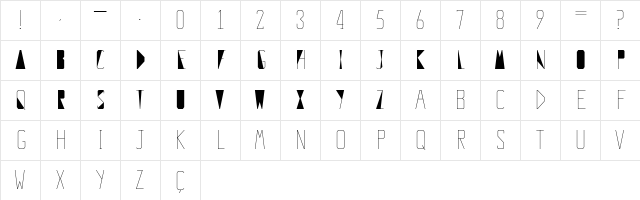
Yava Regular Free Font
Yava Regular
Designer: Shiho Yokoyama
Design Context for Yava
Yava is a composed and adaptable typeface that performs quietly and consistently across a wide range of design contexts.